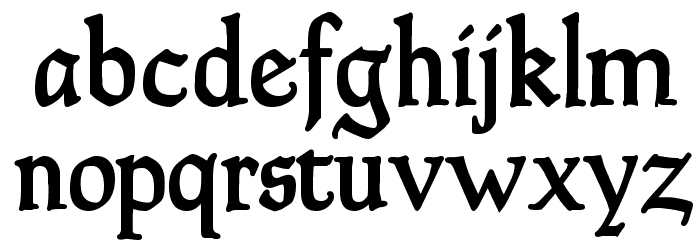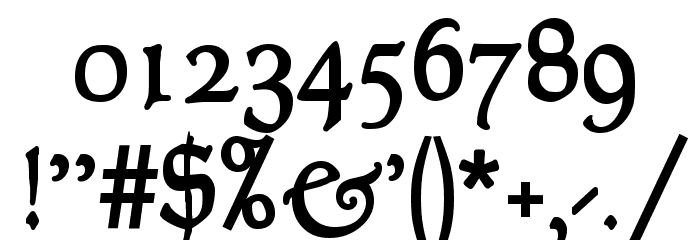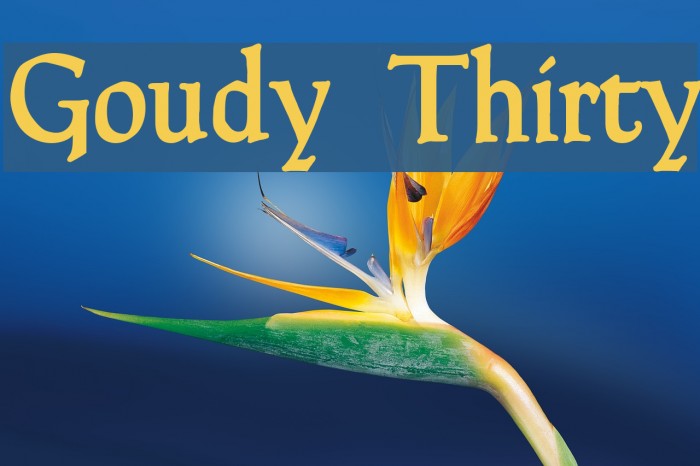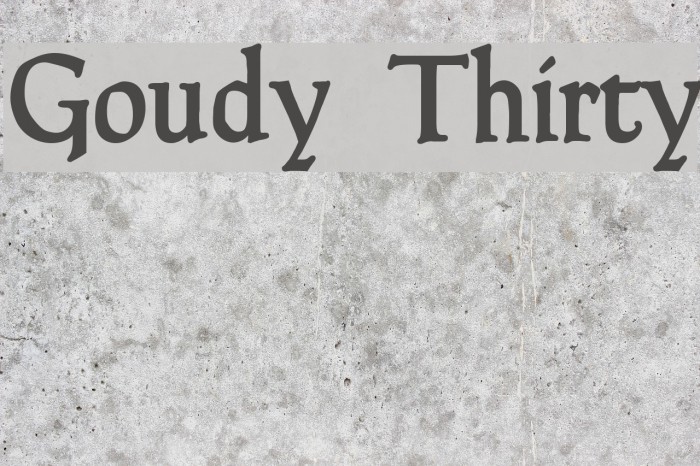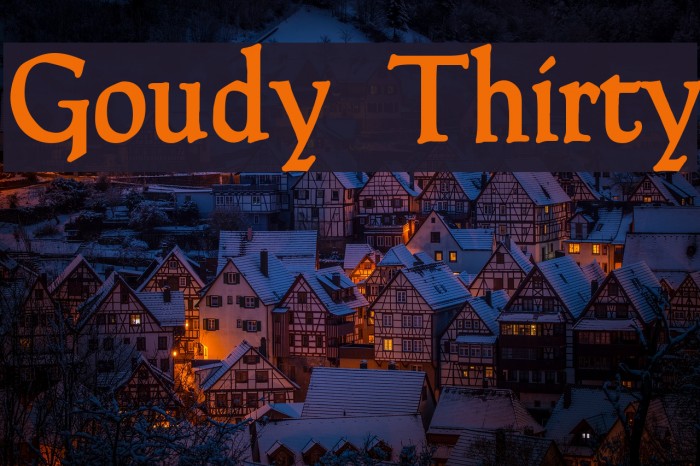
Goudy Thirty Font
This font features a classic and elegant design with a distinct old-world charm. The characters are crafted with a calligraphic influence, showcasing graceful curves and sharp serifs. The uppercase letters are bold and commanding, while the lowercase letters maintain a smooth and flowing appearance. The numerals are consistent with the overall style, offering a harmonious blend of tradition and readability. Special characters are thoughtfully designed, adding to the font's versatility. This typeface is ideal for projects that require a touch of sophistication and historical flair.
A classic, calligraphic font with elegant curves and sharp serifs.
- Proposed Projects: Ideal for book covers, historical documents, invitations, and branding that requires a classic touch.
- Category: Serif
- Overall Style: Classic
- Use Case: Headlines, Logos, Invitations